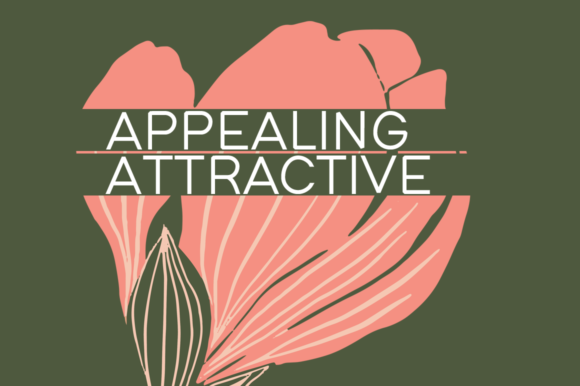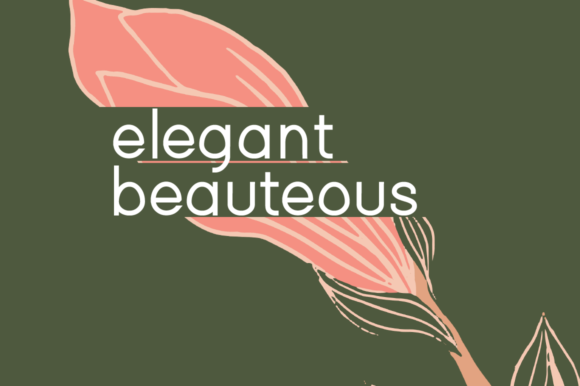
Introducing Blossom Font: The Perfect Addition to Your Design Arsenal
Are you a designer or crafter looking for a fresh and elegant font to elevate your creative projects? Look no further than Blossom Font, a brand new display font that’s perfect for a wide range of applications. In this article, we’ll take a closer look at Blossom Font, its features, and how you can use it to take your designs to the next level.
What is Blossom Font?
Blossom Font is a stunning display font that’s designed to add a touch of elegance and sophistication to your designs. With its delicate and intricate details, Blossom Font is perfect for creating beautiful and eye-catching designs that will leave a lasting impression. Whether you’re working on a stationery project, logo design, or website header, Blossom Font is the perfect choice.
Key Features of Blossom Font
So, what makes Blossom Font so special? Here are some of its key features:
• Perfect for display purposes: Blossom Font is designed specifically for display purposes, making it perfect for headlines, titles, and other prominent text elements.
• Elegant and sophisticated: With its delicate and intricate details, Blossom Font adds a touch of elegance and sophistication to any design.
• Highly versatile: Blossom Font can be used for a wide range of applications, from stationery and logos to website headers and social media graphics.
• Easy to read: Despite its intricate details, Blossom Font is surprisingly easy to read, making it perfect for use in a variety of contexts.
Use Cases for Blossom Font
So, how can you use Blossom Font in your designs? Here are some ideas to get you started:
• Stationery: Add a touch of elegance to your stationery with Blossom Font. Use it for letterheads, business cards, and more.
• Logos: Create a beautiful and memorable logo with Blossom Font. Perfect for businesses, organizations, and personal brands.
• T-shirts and apparel: Use Blossom Font to create stunning designs for t-shirts, hoodies, and other apparel.
• Paper and print design: Add a touch of elegance to your print designs with Blossom Font. Perfect for brochures, flyers, and more.
• Website headers: Use Blossom Font to create a stunning website header that will grab visitors’ attention.
• Photo frames and posters: Add a touch of elegance to your photo frames and posters with Blossom Font.
• Music covers and flyers: Use Blossom Font to create stunning music covers and flyers that will stand out from the crowd.
Why Choose Blossom Font?
So, why should you choose Blossom Font for your design projects? Here are just a few reasons:
• Unique and elegant design: Blossom Font is a truly unique and elegant font that will add a touch of sophistication to any design.
• Highly versatile: Blossom Font can be used for a wide range of applications, making it a great addition to any designer’s toolkit.
• Easy to use: Blossom Font is surprisingly easy to use, even for designers who are new to working with fonts.
In conclusion, Blossom Font is a stunning display font that’s perfect for designers and crafters looking to add a touch of elegance and sophistication to their designs. With its delicate and intricate details, Blossom Font is highly versatile and easy to use, making it a great addition to any designer’s toolkit. Whether you’re working on a stationery project, logo design, or website header, Blossom Font is the perfect choice. So why wait? Download Blossom Font today and start creating beautiful designs that will leave a lasting impression.